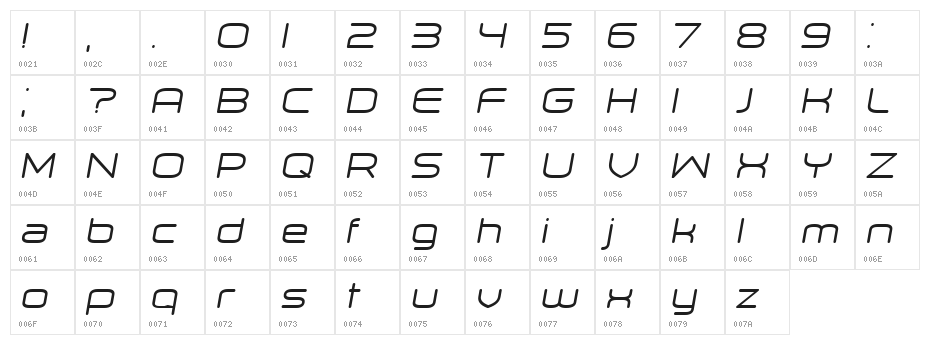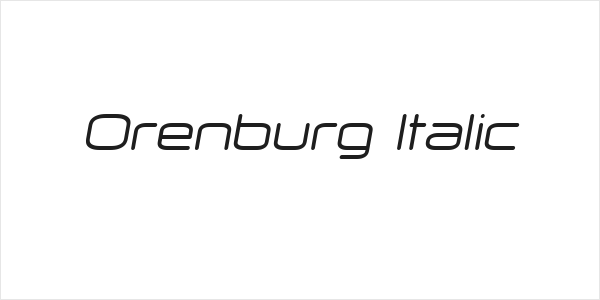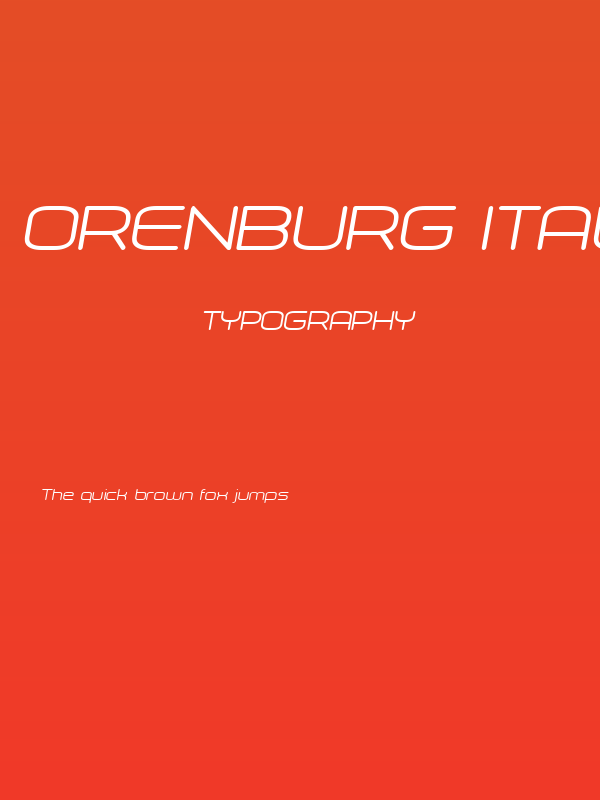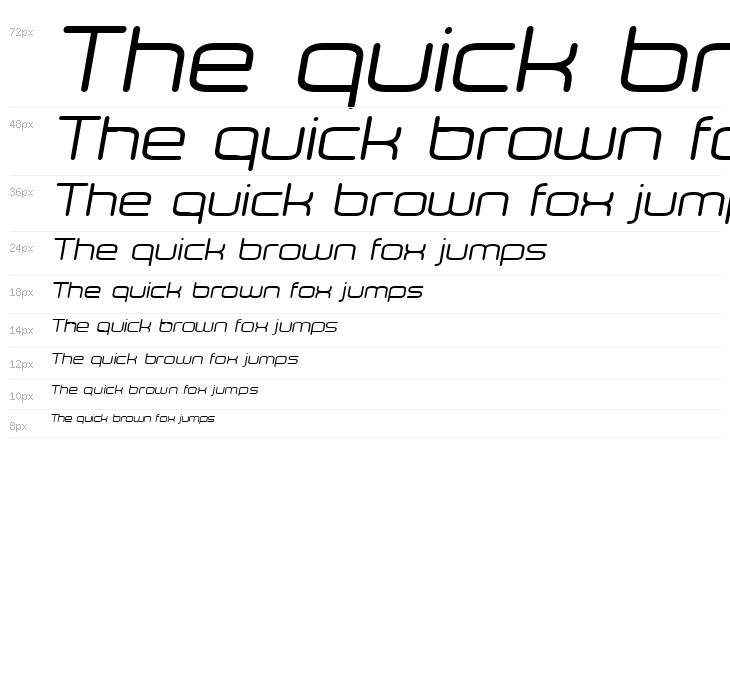
Orenburg Italic Font
Orenburg Italic Description
This font features a sleek, modern design with a distinct italic slant, giving it a dynamic and forward-moving appearance. The characters are crafted with smooth curves and a consistent stroke width, creating a harmonious and fluid look. The uppercase and lowercase letters maintain a uniform style, while the numerals and special characters complement the overall aesthetic. Its clean lines and contemporary feel make it suitable for a variety of design applications.
| Use Case | Headlines, Logos, Digital Media |
| Proposed Projects | Ideal for branding, advertising, and digital media projects that require a modern and dynamic touch. |